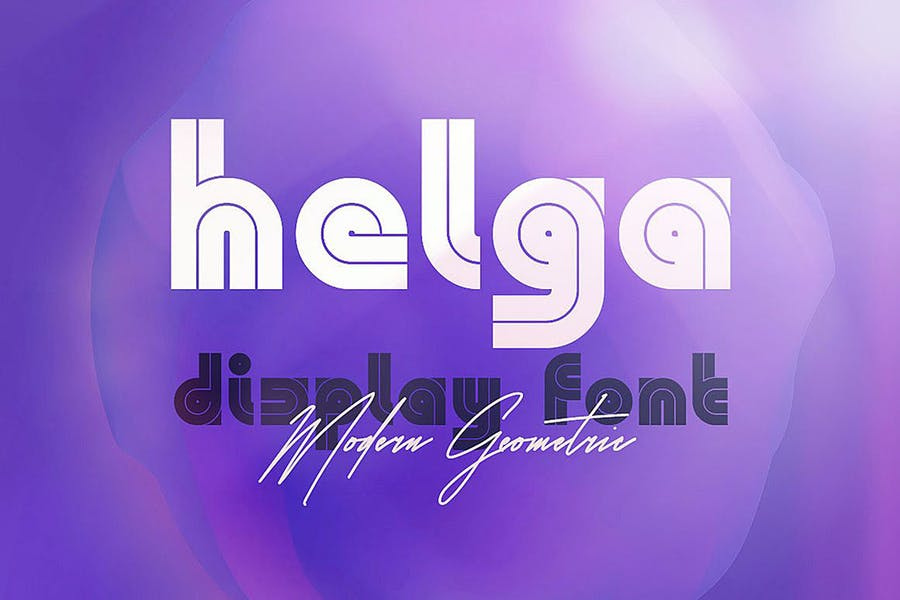
Helga - Display Font
Helga - Display Font is perfect for bold fashion magazine headers, powerful brand identity systems, striking poster designs, commanding corporate presentations, dynamic sports team logos, impactful advertising campaigns, strong editorial layouts, assertive product packaging, confident marketing materials, and authoritative digital displays.
Helga - Display Font creates excitement because it embodies strength and confidence with its bold, commanding letterforms and powerful visual presence. The font's robust character design and assertive styling instantly convey authority and determination, making any brand appear strong and reliable. Its carefully engineered weight distribution and dramatic proportions create an immediate sense of leadership that captivates audiences seeking brands that project confidence, competence, and unwavering strength in competitive markets.
The Helga - Display Font family includes multiple weights and styles: Regular, Bold, Black, Ultra Black, Light, Medium, Italic, Condensed, Extended, and Shadow versions. Each variant maintains the font's signature powerful character while offering different levels of visual impact and dramatic presence for various high-impact applications.